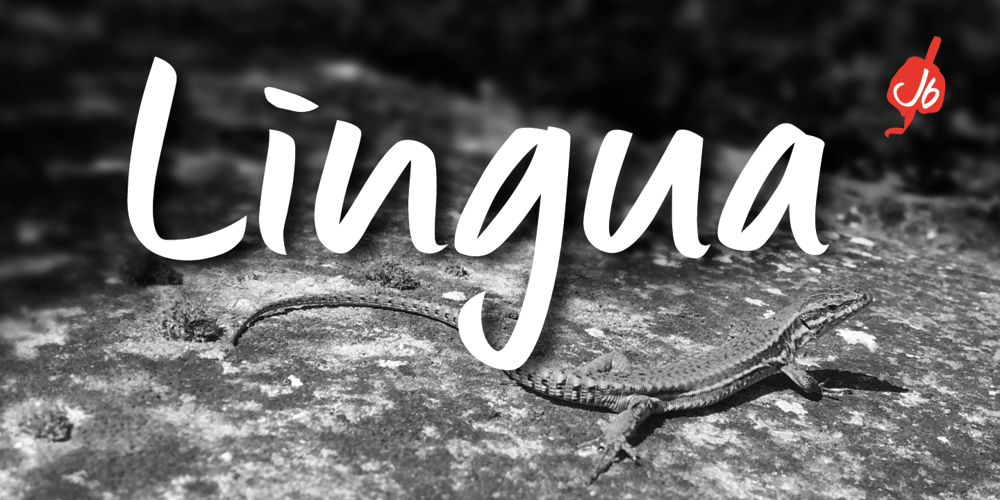
Lingua Font Family was designed by Geert Dijkers and published by JOEBOB graphics. Lingua contains 1 styles and family package options. Lingua is the unlikely offspring of our CAPUT font. Wondering what the undercast characters of this font would look like, I started writing. I was pleased with the first results and this encouraged me to pursue the process. The final font still has some slight resemblance to its predecessor, but stands completely on its own. This bold, sturdy typeface is very suitable for headers, posters and other designs where large sizes are needed. It comes with both a western and a cyrillic character set.